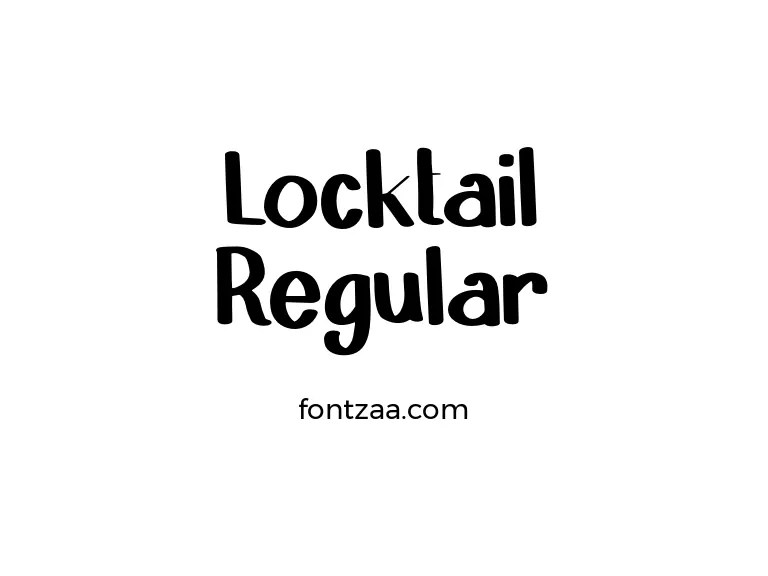
Locktail Regular Font offers expressive lettering for designers looking for a elegant visual direction. For projects that need typography with a stronger identity, Locktail Regular Font offers a elegant direction suited to creative display work. The font can work as the primary visual element in a minimal layout or as part of a more detailed composition. Using generous space around the lettering can help the details of the typeface remain visible instead of competing with other elements. Its letter shapes become especially noticeable at larger sizes, where spacing and proportions can be explored more clearly. Its display-focused appearance makes it worth testing in invitations, wedding stationery, signatures, quotes and elegant branding. A clean serif or sans serif companion can handle smaller text while this font remains focused on headlines and key messages. Keeping secondary typography simple often allows the distinctive qualities of the main font to remain more visible. Source metadata currently associates the font with Ibra Creative Studio. Current license information is shown as Free for personal use; checking the original documentation is recommended before client or commercial work. Its final appearance will depend heavily on the surrounding colors, imagery, spacing and supporting typography.
With its distinctive letterforms, Locktail Regular Font can introduce a elegant character into headlines, branding and promotional layouts. The typeface can change considerably depending on tracking, scale, alignment, background and surrounding imagery. Testing several arrangements before choosing the final version can reveal which characteristics of the typeface work best. Different color combinations can make the same font feel subtle, energetic, premium or highly decorative. Creative uses may range from invitations, wedding stationery, signatures, quotes and elegant branding, with different results depending on scale and layout. For layouts containing longer information, pairing it with a simpler supporting typeface can improve readability and hierarchy. Keeping secondary typography simple often allows the distinctive qualities of the main font to remain more visible. According to the available font information, the typeface is associated with Ibra Creative Studio. Current license information is shown as Free for personal use; checking the original documentation is recommended before client or commercial work. Experimenting directly in the intended design is usually the best way to judge whether the typeface suits the project.
Locktail Regular Font brings a elegant personality to typography and gives designers a flexible starting point for digital and print projects. Testing several arrangements before choosing the final version can reveal which characteristics of the typeface work best. The typeface can change considerably depending on tracking, scale, alignment, background and surrounding imagery. Its letter shapes become especially noticeable at larger sizes, where spacing and proportions can be explored more clearly. Creative uses may range from invitations, wedding stationery, signatures, quotes and elegant branding, with different results depending on scale and layout. A clean serif or sans serif companion can handle smaller text while this font remains focused on headlines and key messages. Keeping secondary typography simple often allows the distinctive qualities of the main font to remain more visible. The available source information lists Ibra Creative Studio as the designer or publisher. The available licensing label is Free for personal use, but redistribution and commercial permissions should always be confirmed from the original source. A few quick layout variations can help determine where the font creates the strongest visual result.
Locktail Regular Font Family
Within the Locktail Regular Font Family, even a single available style can produce many different visual treatments through scale, tracking and layout choices. Locktail Regular Font stands out through its individual shapes and can become an important visual element in font-family exploration. The typeface can change considerably depending on tracking, scale, alignment, background and surrounding imagery. Its letter shapes become especially noticeable at larger sizes, where spacing and proportions can be explored more clearly. Using generous space around the lettering can help the details of the typeface remain visible instead of competing with other elements. Possible applications include invitations, wedding stationery, signatures, quotes and elegant branding. Previewing the final layout on both large and small screens helps identify spacing and readability problems early. Print and digital layouts may require different sizing and spacing, so testing the actual output dimensions is recommended. Source metadata currently associates the font with Ibra Creative Studio. The available licensing label is Free for personal use, but redistribution and commercial permissions should always be confirmed from the original source. The most effective treatment will vary by project, so designers should compare several versions before finalizing the artwork.
| Designer | Ibra Creative Studio |
Tips for Better Results With Locktail Regular Font
Designers exploring a elegant typeface can use Locktail Regular Font to add a more recognizable visual voice to spacing, contrast, scale and layout decisions. The font can work as the primary visual element in a minimal layout or as part of a more detailed composition. Testing several arrangements before choosing the final version can reveal which characteristics of the typeface work best. Using generous space around the lettering can help the details of the typeface remain visible instead of competing with other elements. Creative uses may range from invitations, wedding stationery, signatures, quotes and elegant branding, with different results depending on scale and layout. Designers should evaluate the typeface inside the real project because a standalone preview cannot show every possible visual combination. Keeping secondary typography simple often allows the distinctive qualities of the main font to remain more visible. The designer or publisher information available for this typeface is Ibra Creative Studio. Current license information is shown as Free for personal use; checking the original documentation is recommended before client or commercial work. Its final appearance will depend heavily on the surrounding colors, imagery, spacing and supporting typography.
Font Pairing Ideas for Locktail Regular Font
For projects that need typography with a stronger identity, Locktail Regular Font offers a elegant direction suited to combining the display font with supporting typefaces. Its letter shapes become especially noticeable at larger sizes, where spacing and proportions can be explored more clearly. Using generous space around the lettering can help the details of the typeface remain visible instead of competing with other elements. Different color combinations can make the same font feel subtle, energetic, premium or highly decorative. Its display-focused appearance makes it worth testing in invitations, wedding stationery, signatures, quotes and elegant branding. Print and digital layouts may require different sizing and spacing, so testing the actual output dimensions is recommended. Keeping secondary typography simple often allows the distinctive qualities of the main font to remain more visible. The available source information lists Ibra Creative Studio as the designer or publisher. The available licensing label is Free for personal use, but redistribution and commercial permissions should always be confirmed from the original source. A few quick layout variations can help determine where the font creates the strongest visual result.
Using Locktail Regular Font for Posters and Social Media
For projects that need typography with a stronger identity, Locktail Regular Font offers a elegant direction suited to posters, campaigns, thumbnails and promotional content. Using generous space around the lettering can help the details of the typeface remain visible instead of competing with other elements. The typeface can change considerably depending on tracking, scale, alignment, background and surrounding imagery. The font can work as the primary visual element in a minimal layout or as part of a more detailed composition. Designers may explore it across invitations, wedding stationery, signatures, quotes and elegant branding, depending on the tone and requirements of the project. Designers should evaluate the typeface inside the real project because a standalone preview cannot show every possible visual combination. For layouts containing longer information, pairing it with a simpler supporting typeface can improve readability and hierarchy. According to the available font information, the typeface is associated with Ibra Creative Studio. The available licensing label is Free for personal use, but redistribution and commercial permissions should always be confirmed from the original source. Experimenting directly in the intended design is usually the best way to judge whether the typeface suits the project.
Using Locktail Regular Font in Logos
Designers exploring a elegant typeface can use Locktail Regular Font to add a more recognizable visual voice to logos, wordmarks and visual identity systems. The font can work as the primary visual element in a minimal layout or as part of a more detailed composition. The typeface can change considerably depending on tracking, scale, alignment, background and surrounding imagery. Its letter shapes become especially noticeable at larger sizes, where spacing and proportions can be explored more clearly. Its display-focused appearance makes it worth testing in invitations, wedding stationery, signatures, quotes and elegant branding. Previewing the final layout on both large and small screens helps identify spacing and readability problems early. Print and digital layouts may require different sizing and spacing, so testing the actual output dimensions is recommended. According to the available font information, the typeface is associated with Ibra Creative Studio. License details are currently listed as Free for personal use. Users should verify the supplied documentation before using the font in products or paid projects. The most effective treatment will vary by project, so designers should compare several versions before finalizing the artwork.